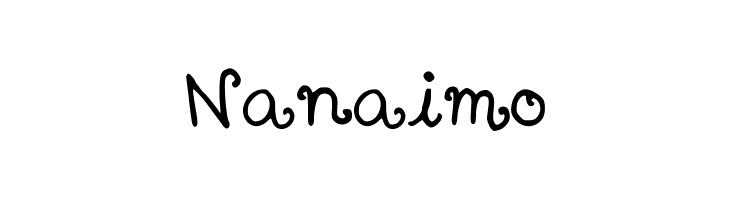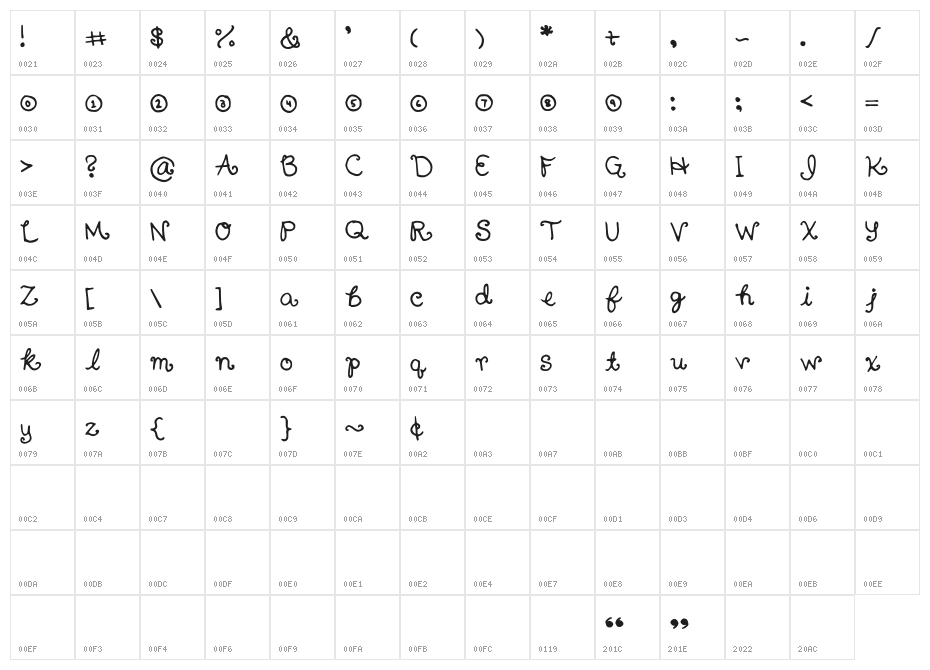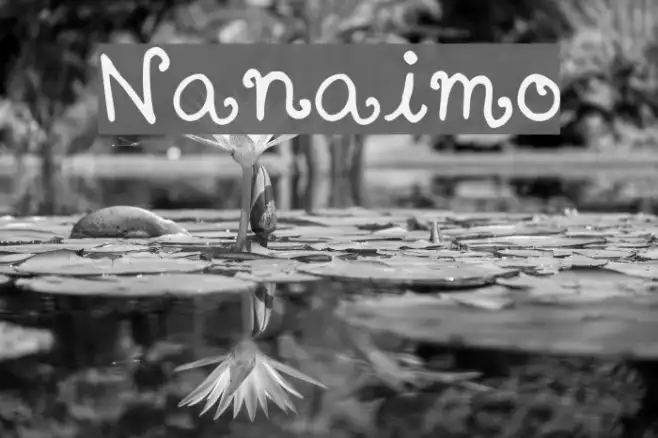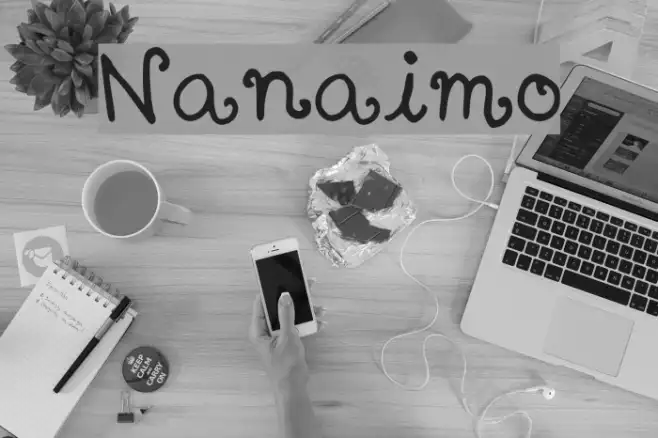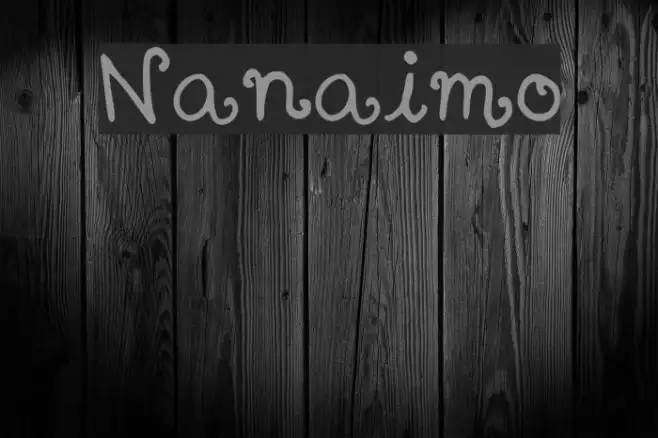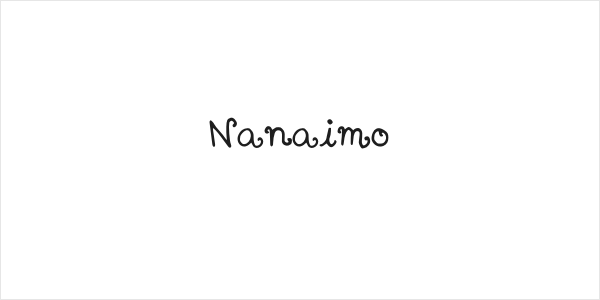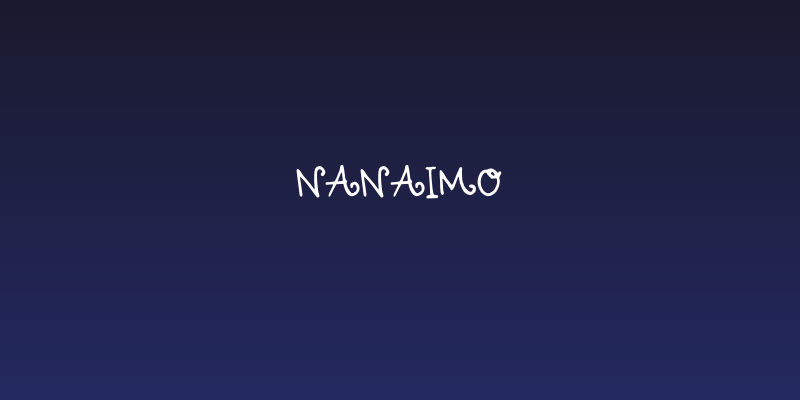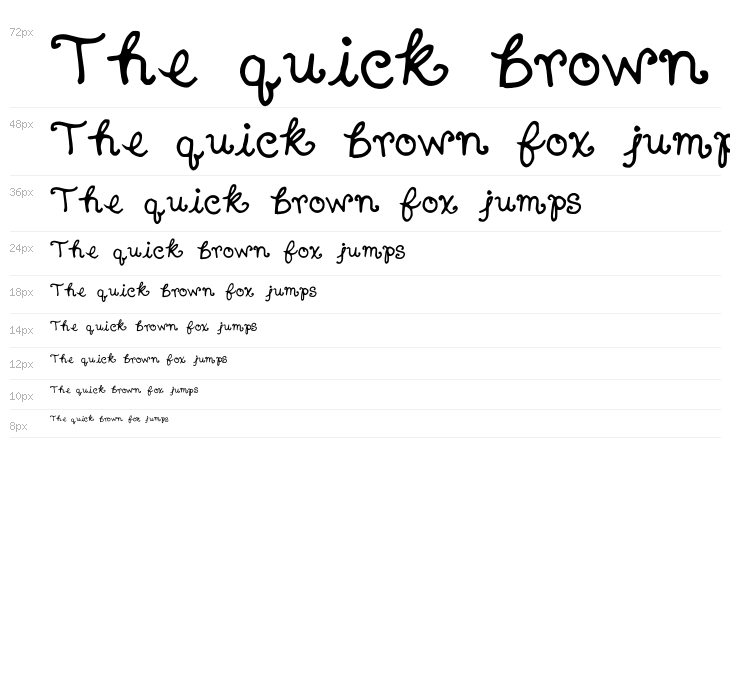
Nanaimo Font
Nanaimo Description
This font features a playful and whimsical design, characterized by its curly and flowing letterforms. Each character has a unique, hand-drawn quality, with rounded edges and a consistent stroke width that gives it a friendly and approachable appearance. The uppercase letters maintain a uniform height, while the lowercase letters exhibit a slight variation in size, adding to the font's charm. The numerals are enclosed in circles, enhancing the playful aesthetic. Special characters are creatively designed, maintaining the overall style of the font. This font is perfect for projects that require a fun and informal touch.
| Proposed Projects | Ideal for children's books, greeting cards, playful branding, and informal invitations. |